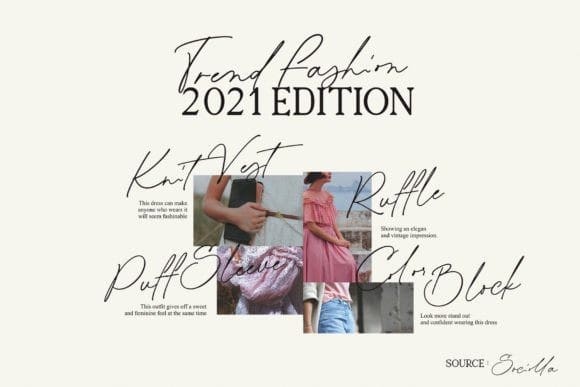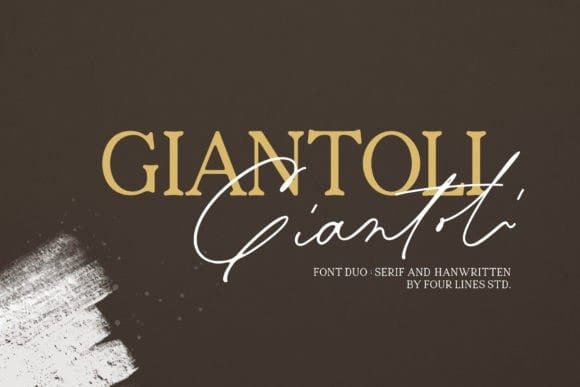
Giantoli Font Duo
Giantoli Font Duo is a spectacular font duo (serif and handwritten). Together or separately, these fonts are ideal for adding a casual, aesthetic, and elegant touch to your design projects. Add this font duo to your favorite creative ideas and notice how it makes them come alive!